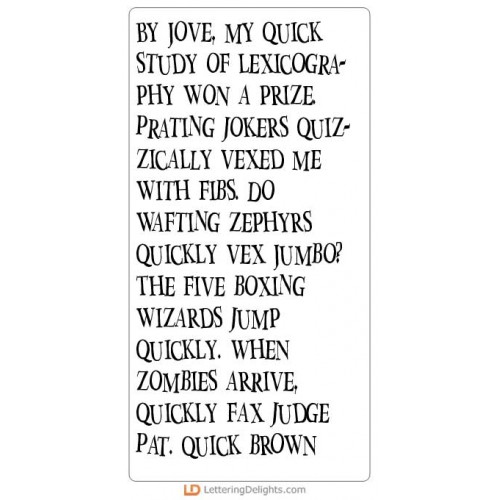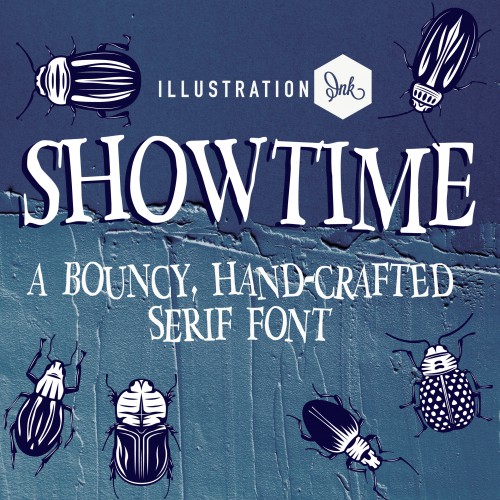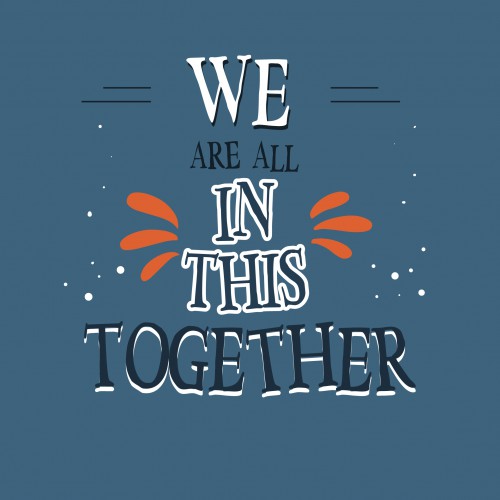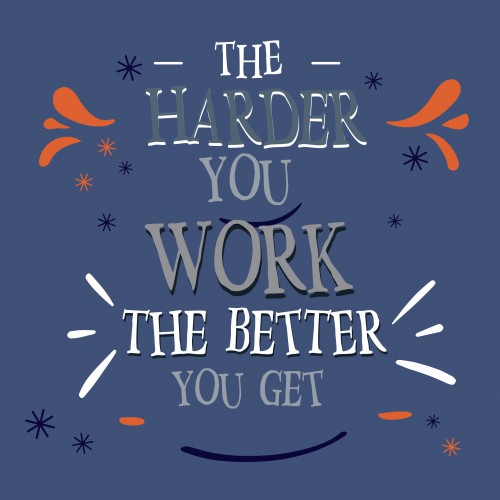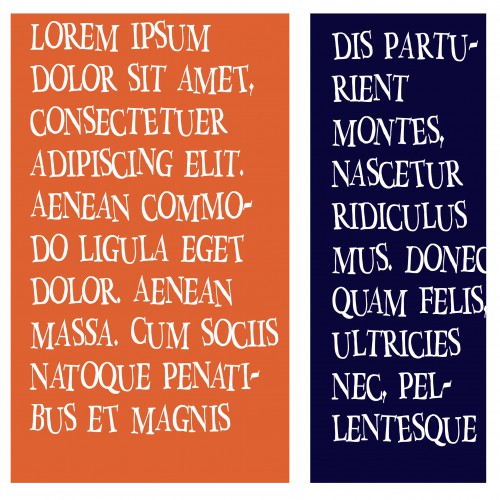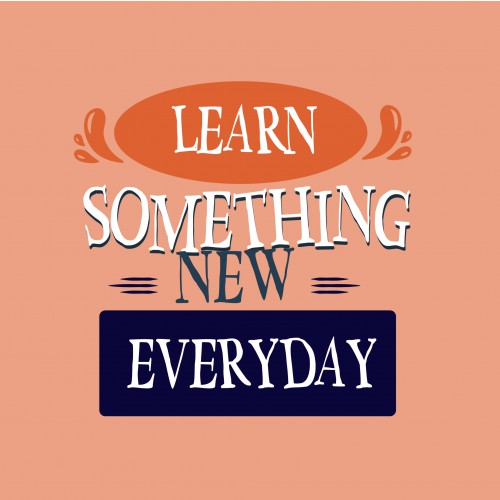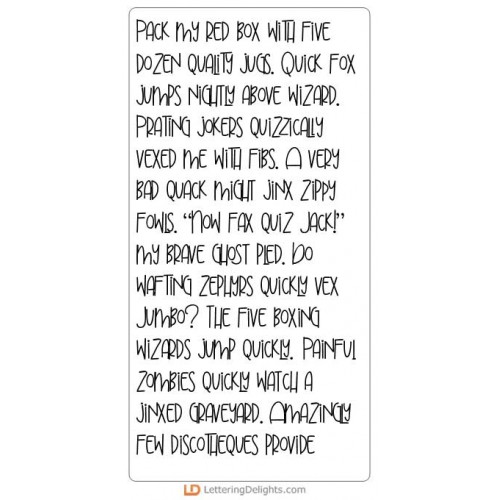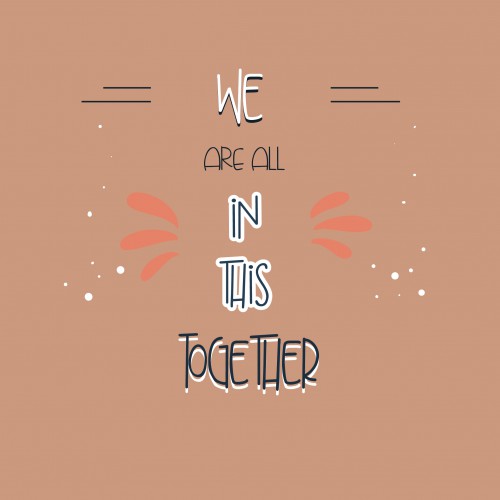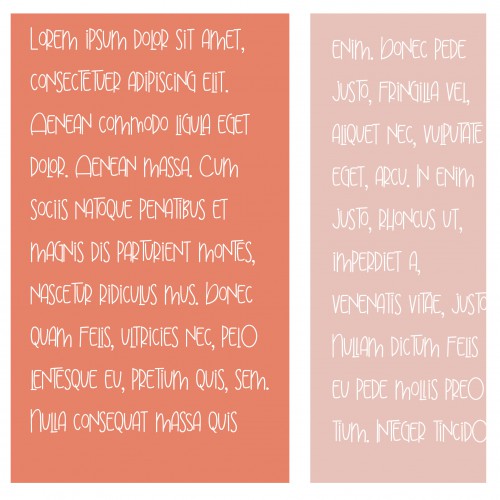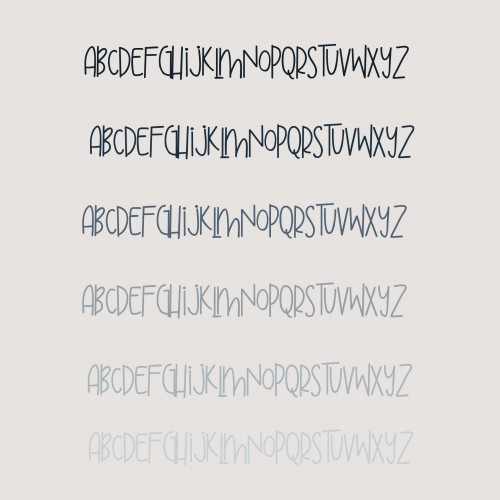
Gothic Tea Party - Big Bundle
This fun collection features gothic and spooky tea party elements and guests perfect for Halloween, cards, crafts, gifts, planner stickers, scrap book pages, decor and more!
ZP Showtime - FN
This all cap serif font has a lot of squiggly texture and toggling...
ZP Showtime Bold - FN
This all cap serif font has a lot of squiggly texture and toggling...
ZP Bettermost Light - FN
This whimsical, hand-written print is a bit bouncy and has interlocking lettering...
ZP Bettermost - FN
This whimsical, hand-written print is a bit bouncy and has interlocking lettering...
ZP Bettermost Bold - FN
This whimsical, hand-written print is a bit bouncy and has interlocking lettering...
PN Featherleft - FN
This pretty, hand-written script has an elaborate uppercase and leans heavily to the left with an al..
DB Gothic Tea Party - DB
This fun doodlebat set features 26 gothic and spooky tea party elements perfect for Halloween, cards..
DB Gothic Tea Party - Guests - DB
This fun doodlebat font features 26 gothic tea party guests perfect for Halloween, cards, crafts, gi..
Gothic Tea Party - GS
This fun graphic set features 26 gothic and spooky tea party elements perfect for Halloween, cards, ..
Gothic Tea Party - CS
This fun cuttable graphic set features 26 gothic and spooky tea party elements perfect for Halloween..
Gothic Tea Party - Guests - GS
This fun graphic set features 26 gothic tea party guests perfect for Halloween, cards, crafts, gifts..
Gothic Tea Party - Guests - CS
This fun cuttable graphic set features 26 gothic tea party guests perfect for Halloween, cards, craf..
Gothic Tea Party - CP
Create fun gothic tea themed gift boxes with this simple cut project set...
Gothic Tea Party - PP
This fun paper pack coordinates with our Gothic Tea Party Collection...
Gothic Tea Party - AL
This fun alphabet coordinates with our Gothic Tea Party Collection...